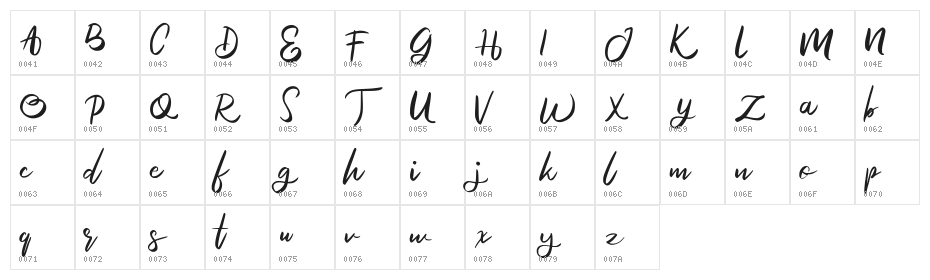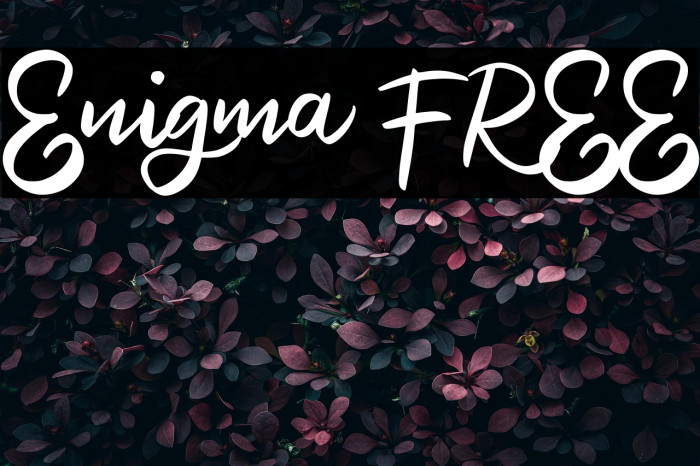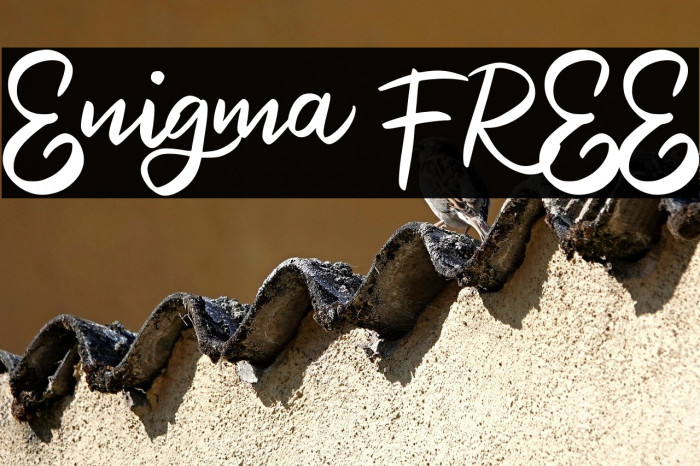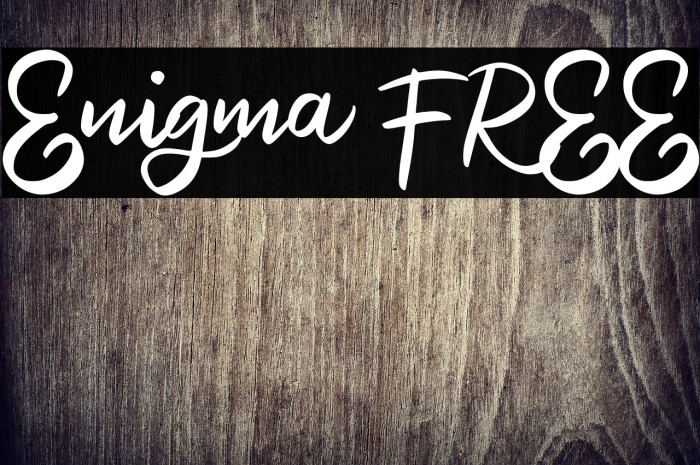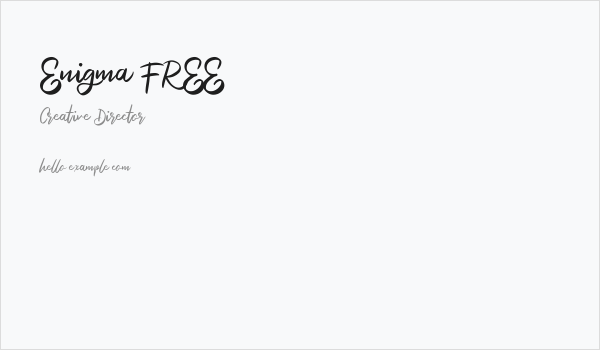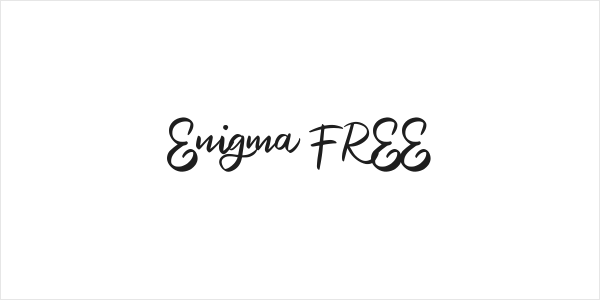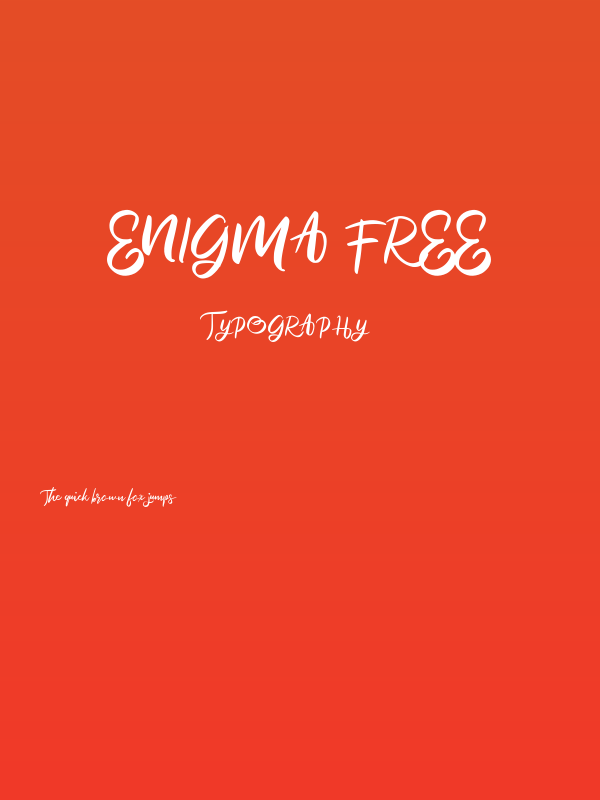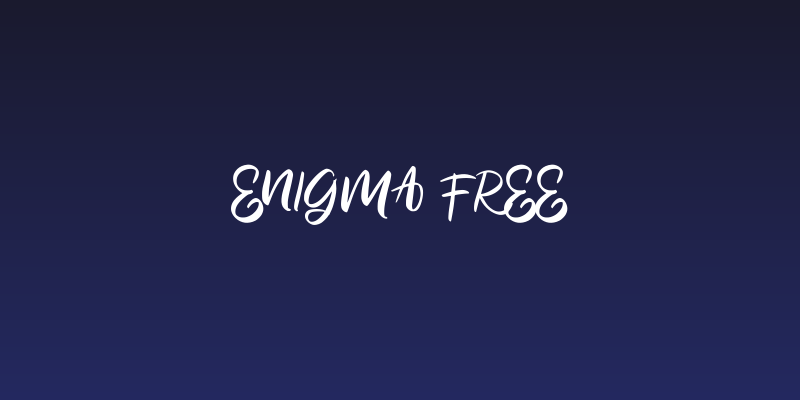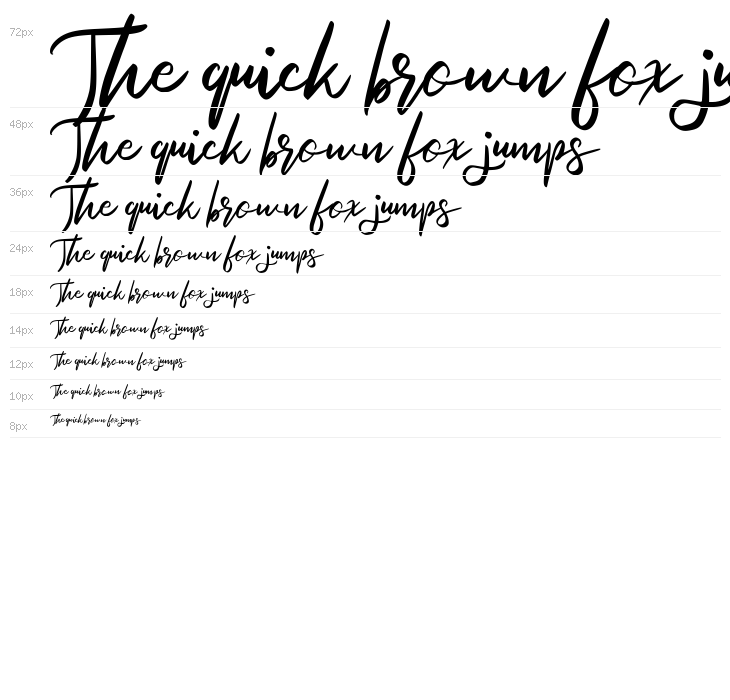
Enigma FREE Font
Enigma FREE Description
This font exhibits a dynamic and energetic script style, characterized by its fluid and cursive letterforms. The strokes are bold and expressive, with a natural flow that mimics handwriting. The uppercase letters are slightly larger and more pronounced, while the lowercase letters maintain a consistent rhythm and balance. The font's playful and artistic nature makes it stand out, with each character connecting seamlessly to the next. The overall appearance is both elegant and casual, suitable for projects that require a personal touch.